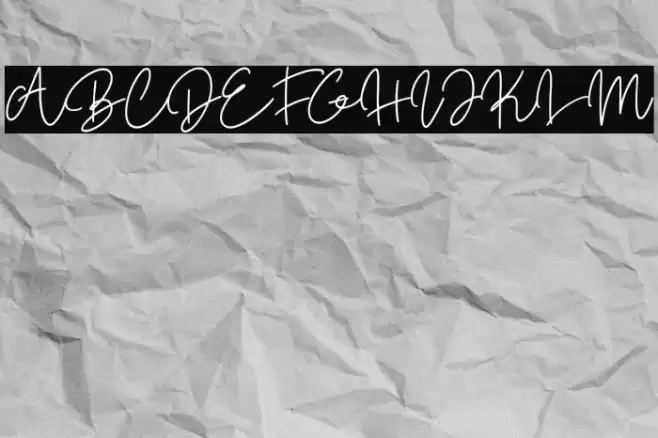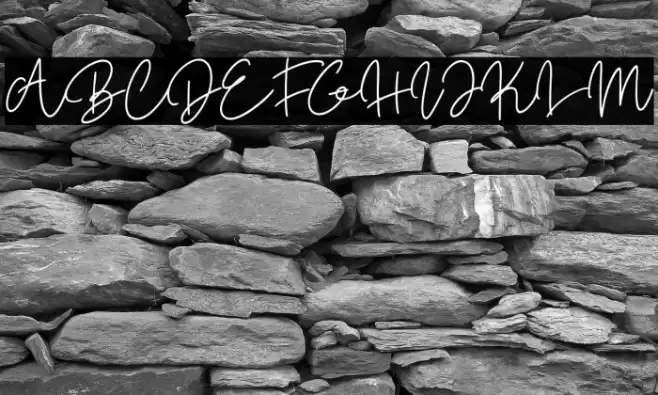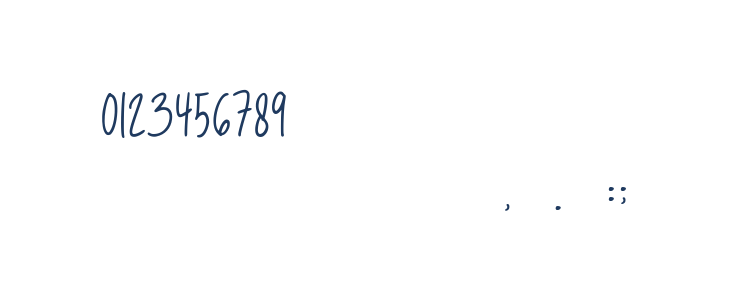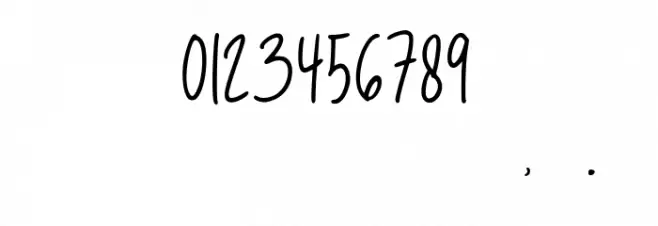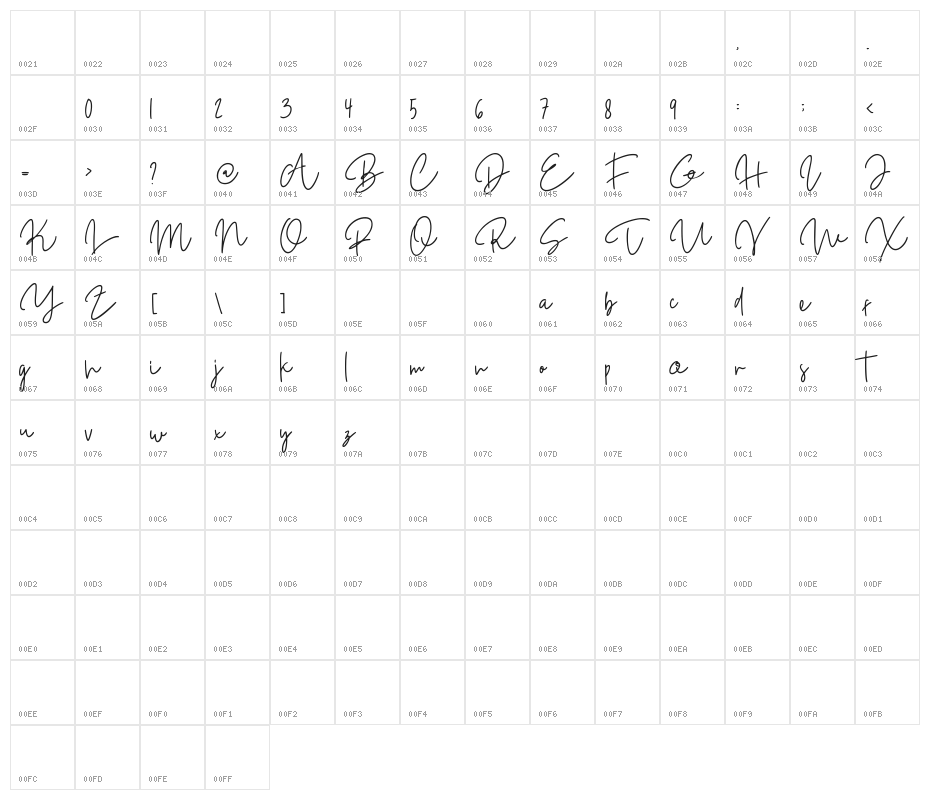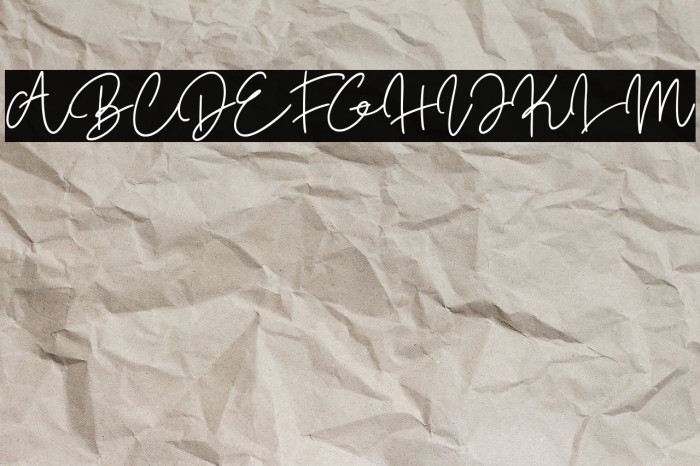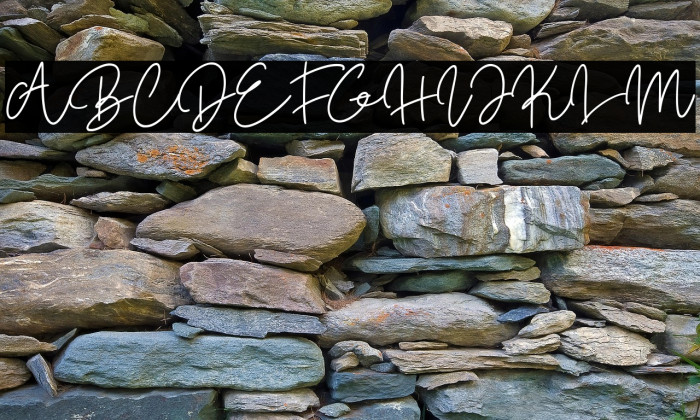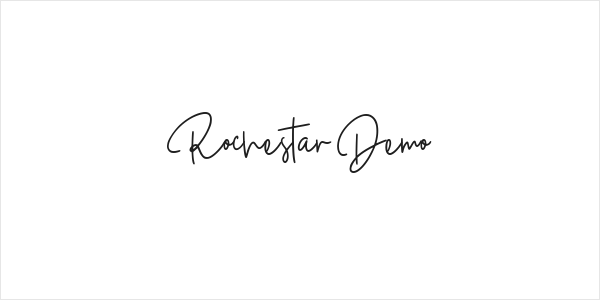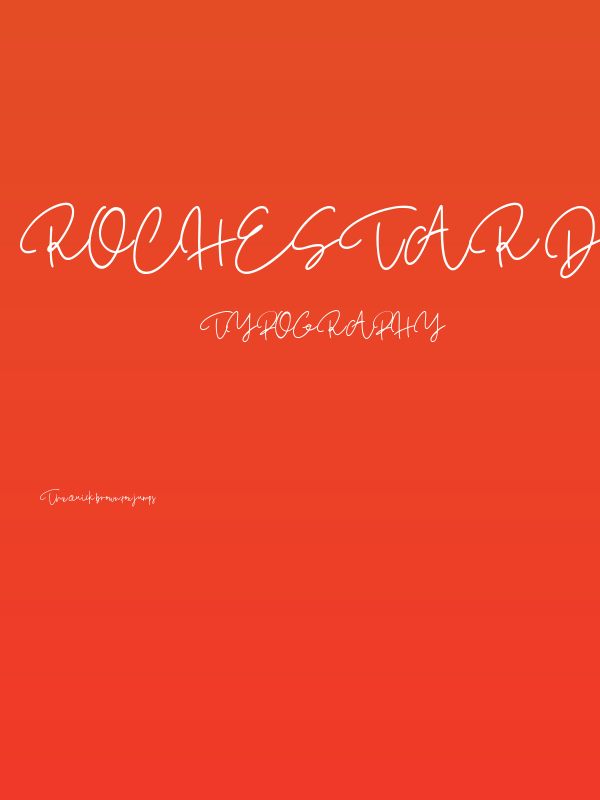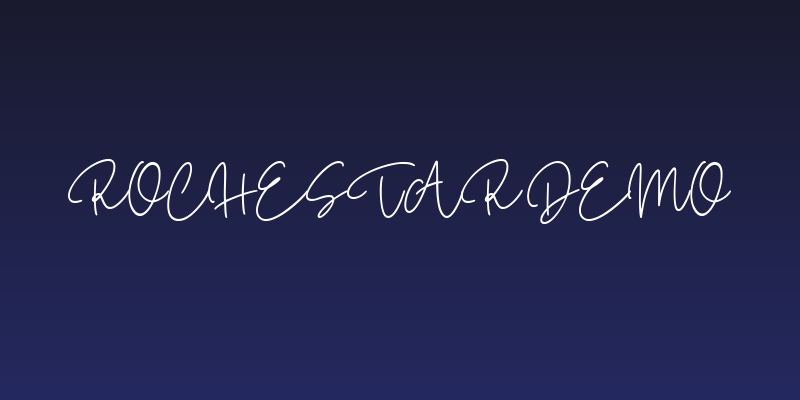
Rochestar Demo Font
Rochestar Demo Description
This font features a flowing, handwritten style that exudes elegance and personality. The uppercase letters are gracefully connected, creating a sense of continuity and fluidity. The lowercase letters maintain a similar aesthetic, with some characters exhibiting unique loops and curves that add to the font's charm. The numerals are straightforward yet retain the handwritten feel, making them versatile for various uses. The special characters complement the overall style, ensuring consistency across all glyphs. This font is perfect for projects that require a personal touch, such as invitations, greeting cards, or branding materials.
A flowing, elegant handwritten font with connected uppercase and unique lowercase letters from Uncategorized fonts.
- Font: Rochestar Demo
- Proposed Projects: Ideal for wedding invitations, personal branding, greeting cards, and artistic projects.
- Overall Style: Elegant, Personal, Artistic
- Use Case: Headlines, Invitations, Personal Branding